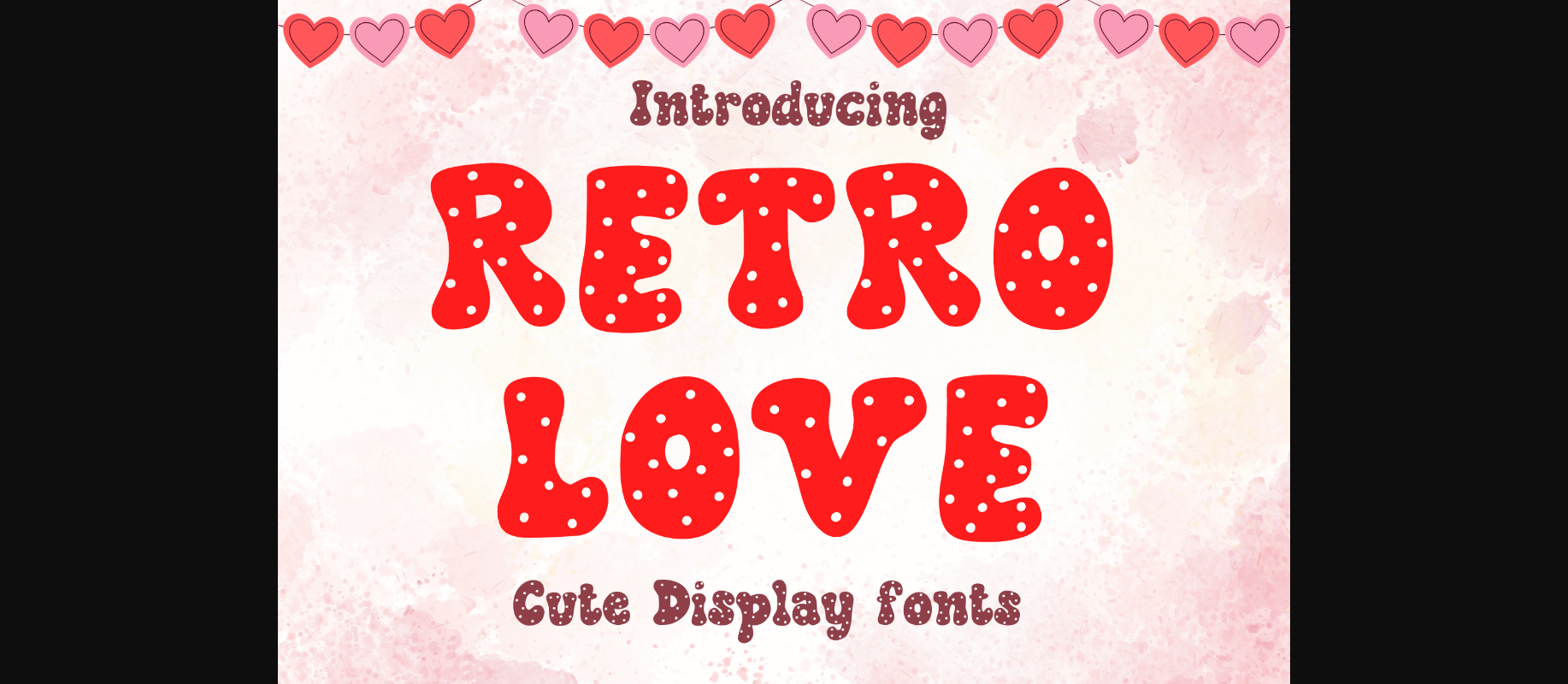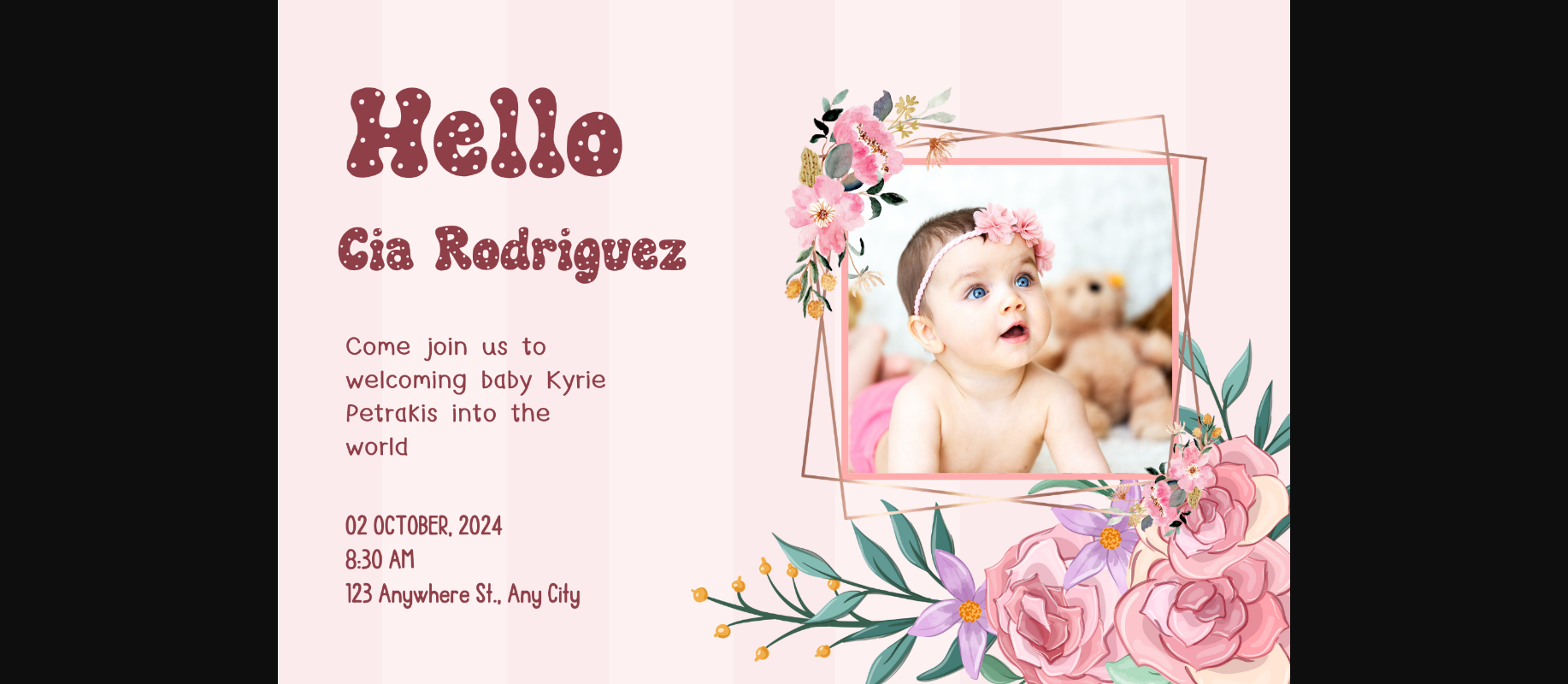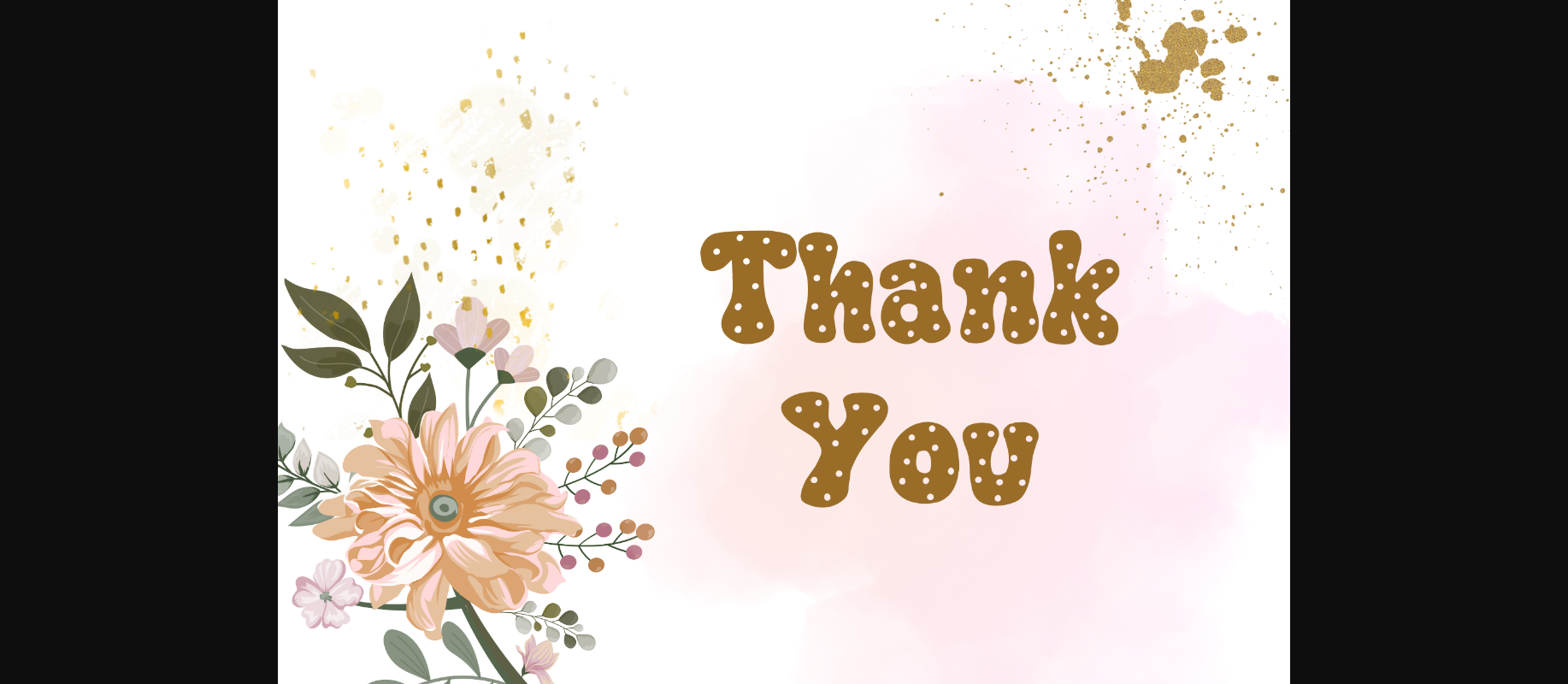
About Retro Love Font
Retro Love is a delightful and playful display font that brings a touch of whimsy to your projects. With its cute design and charming polka dots embellishing the letters, this font adds a joyful flair to any text. Perfect for creating a fun atmosphere in invitations, cards, or playful designs, Retro Love invites a sense of nostalgia and warmth. Embrace the sweetness of this font and let it sprinkle charm on your creative endeavors.